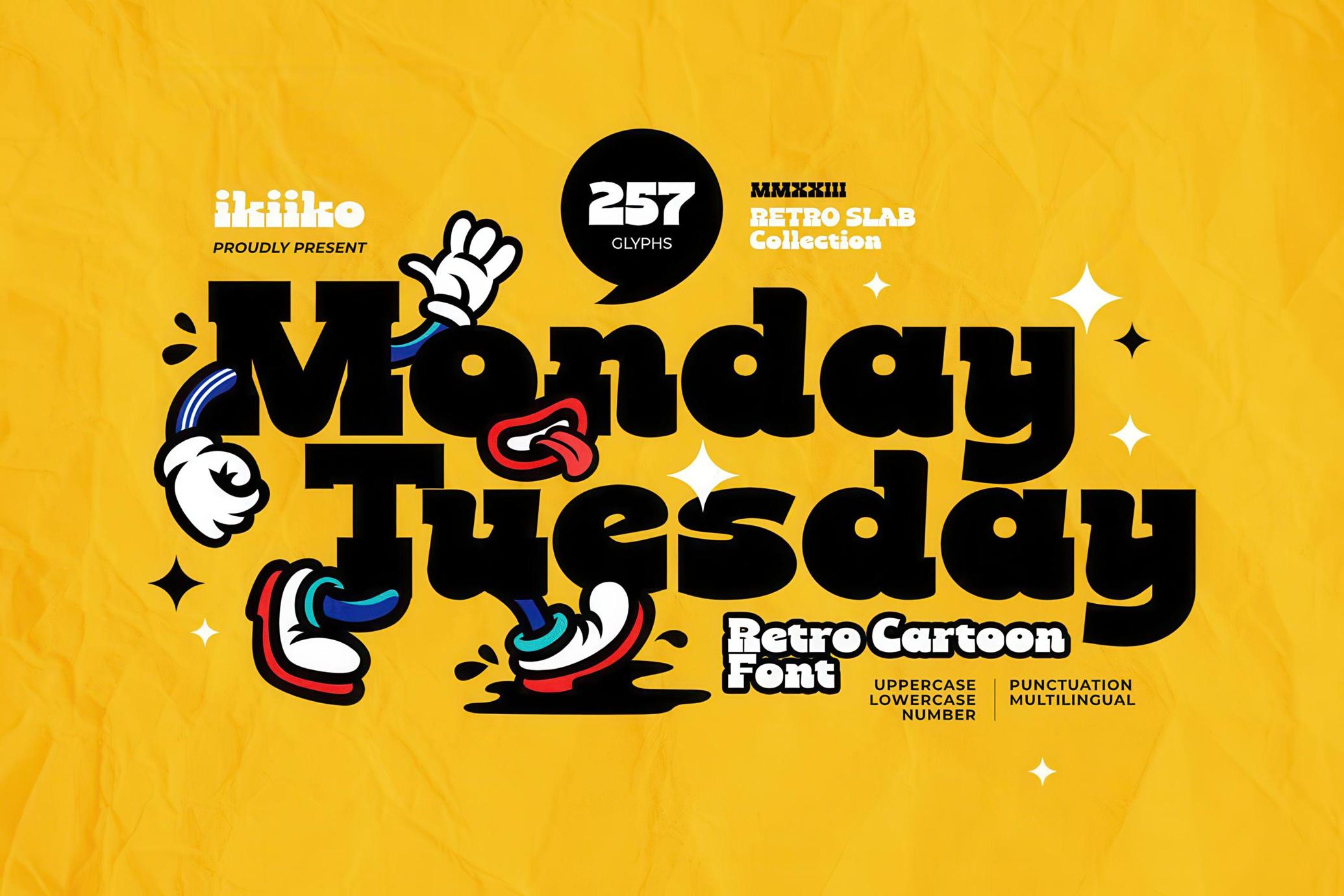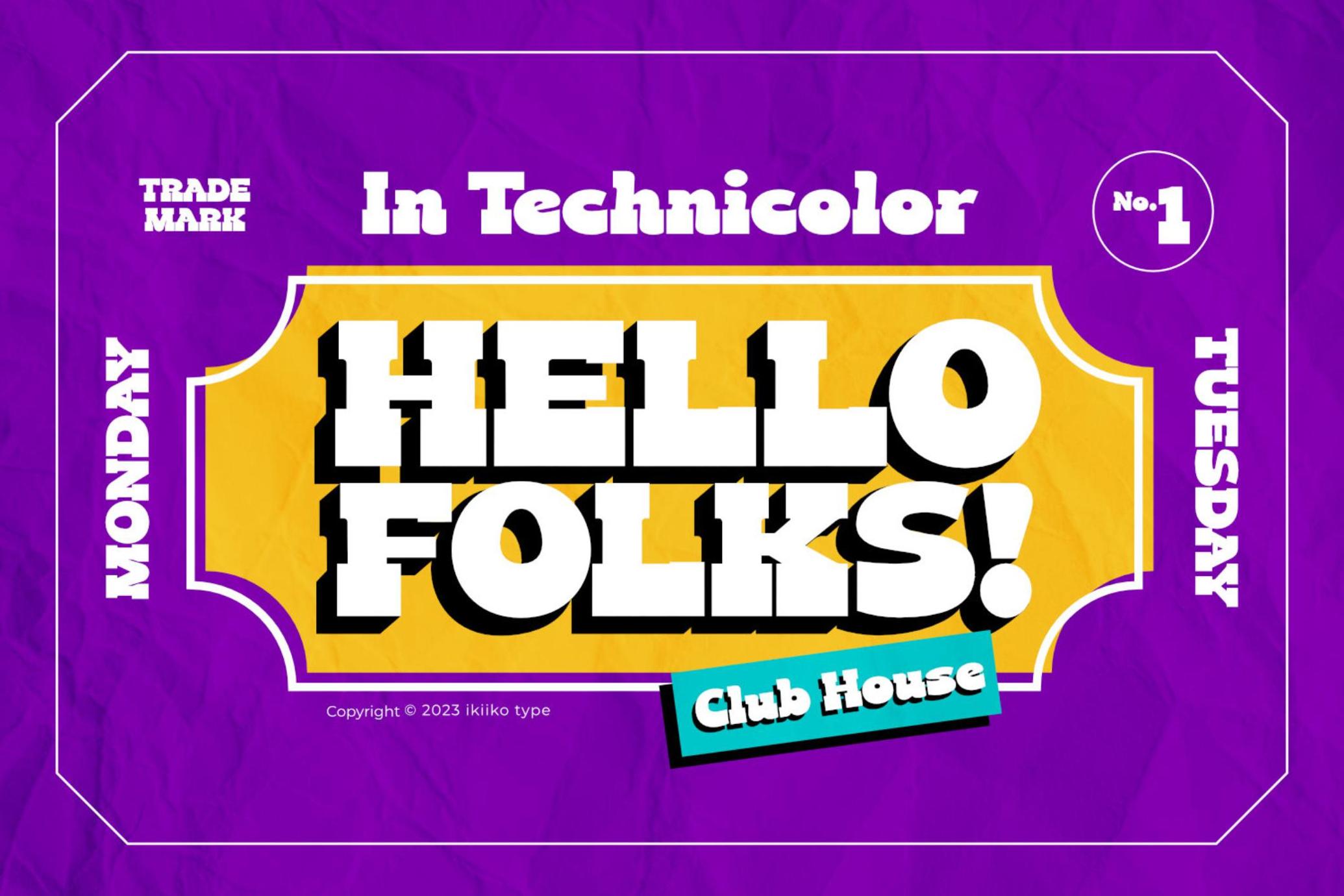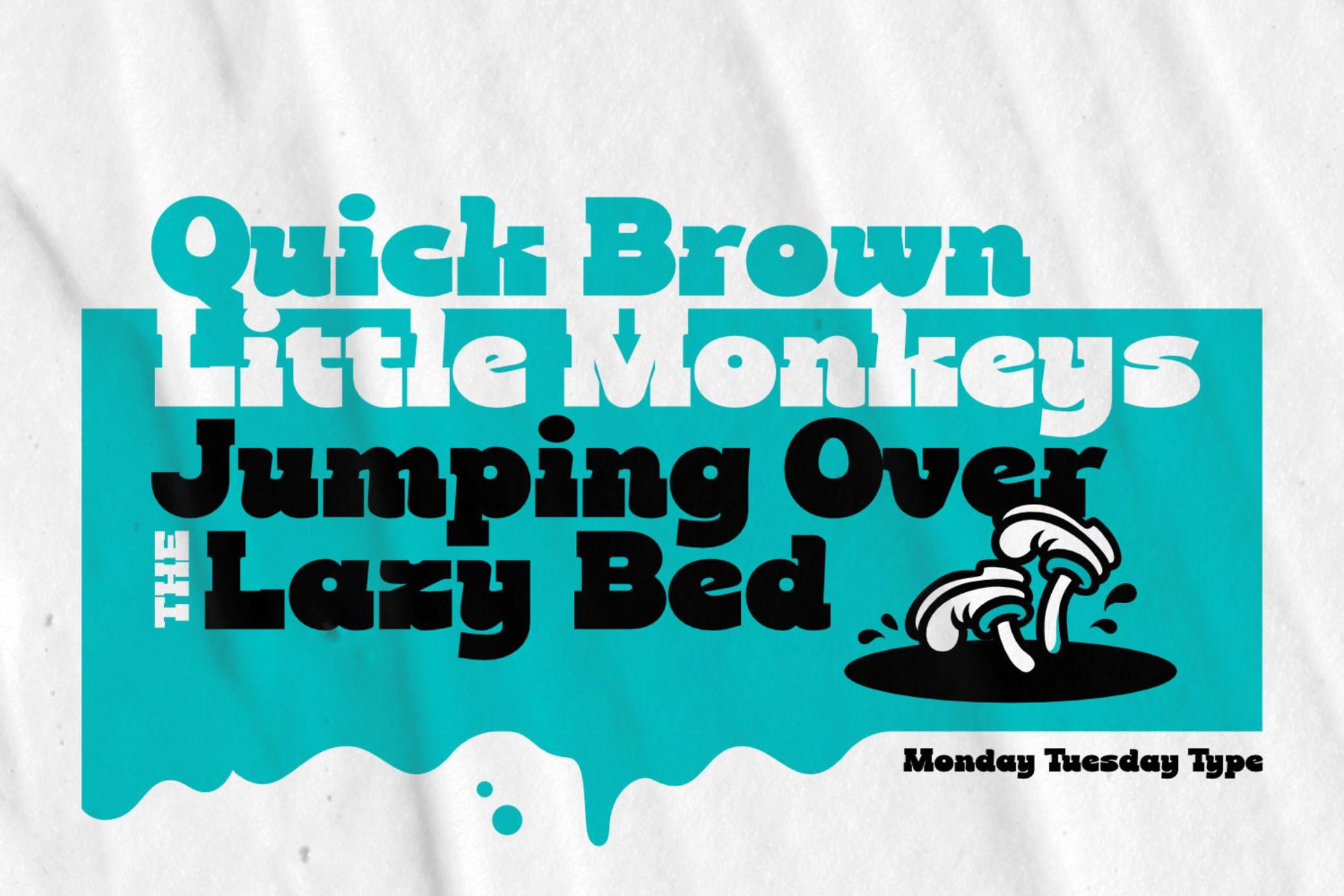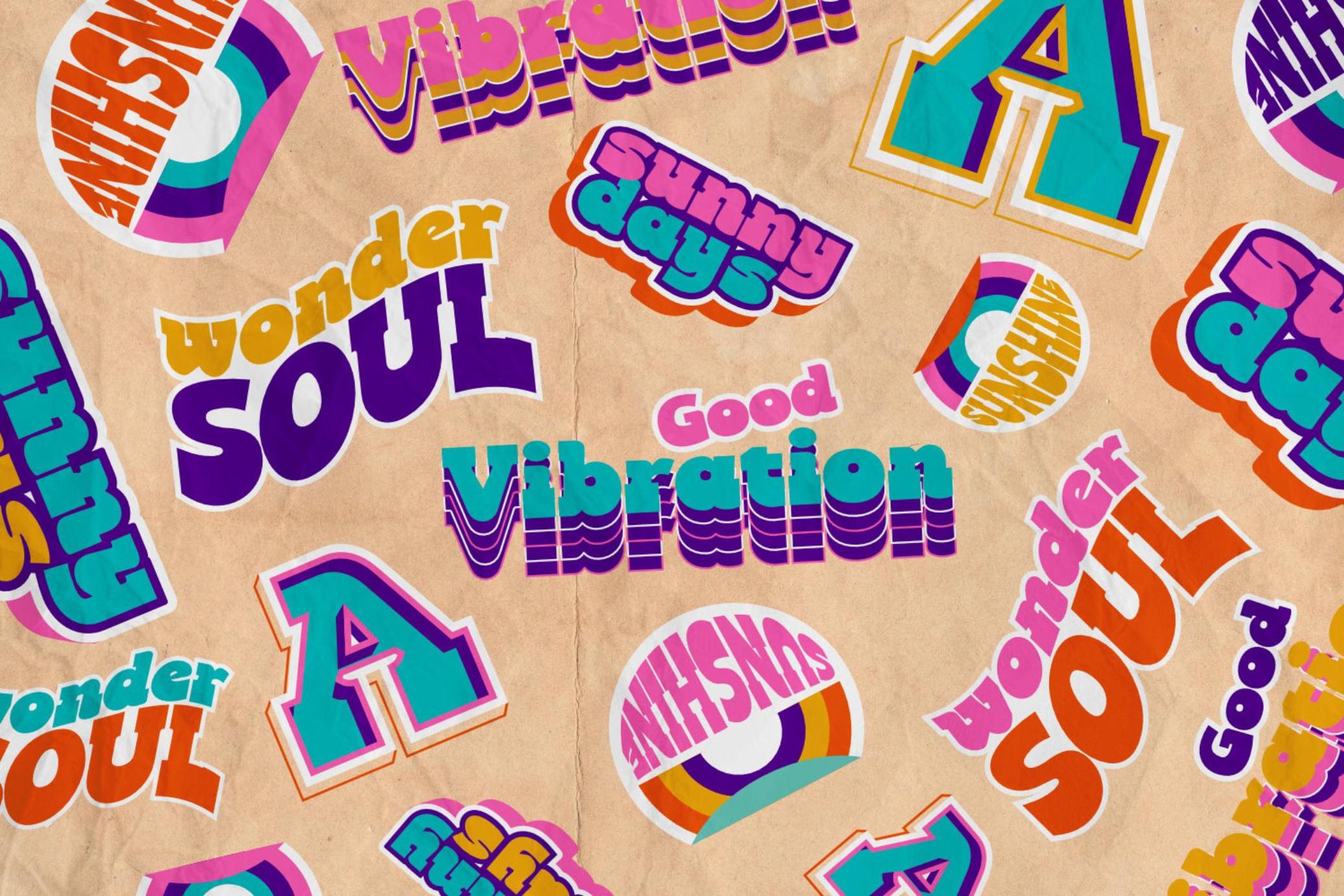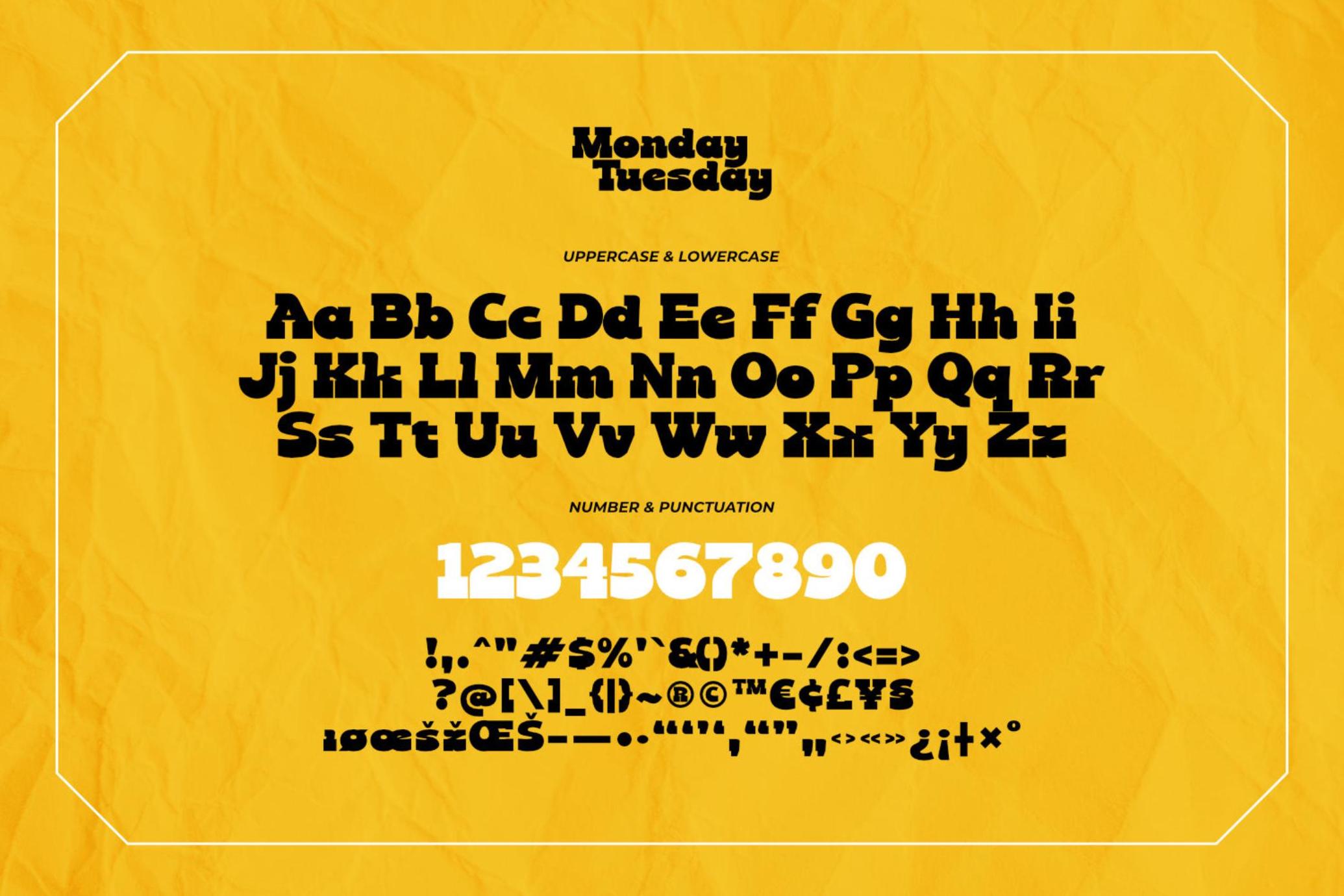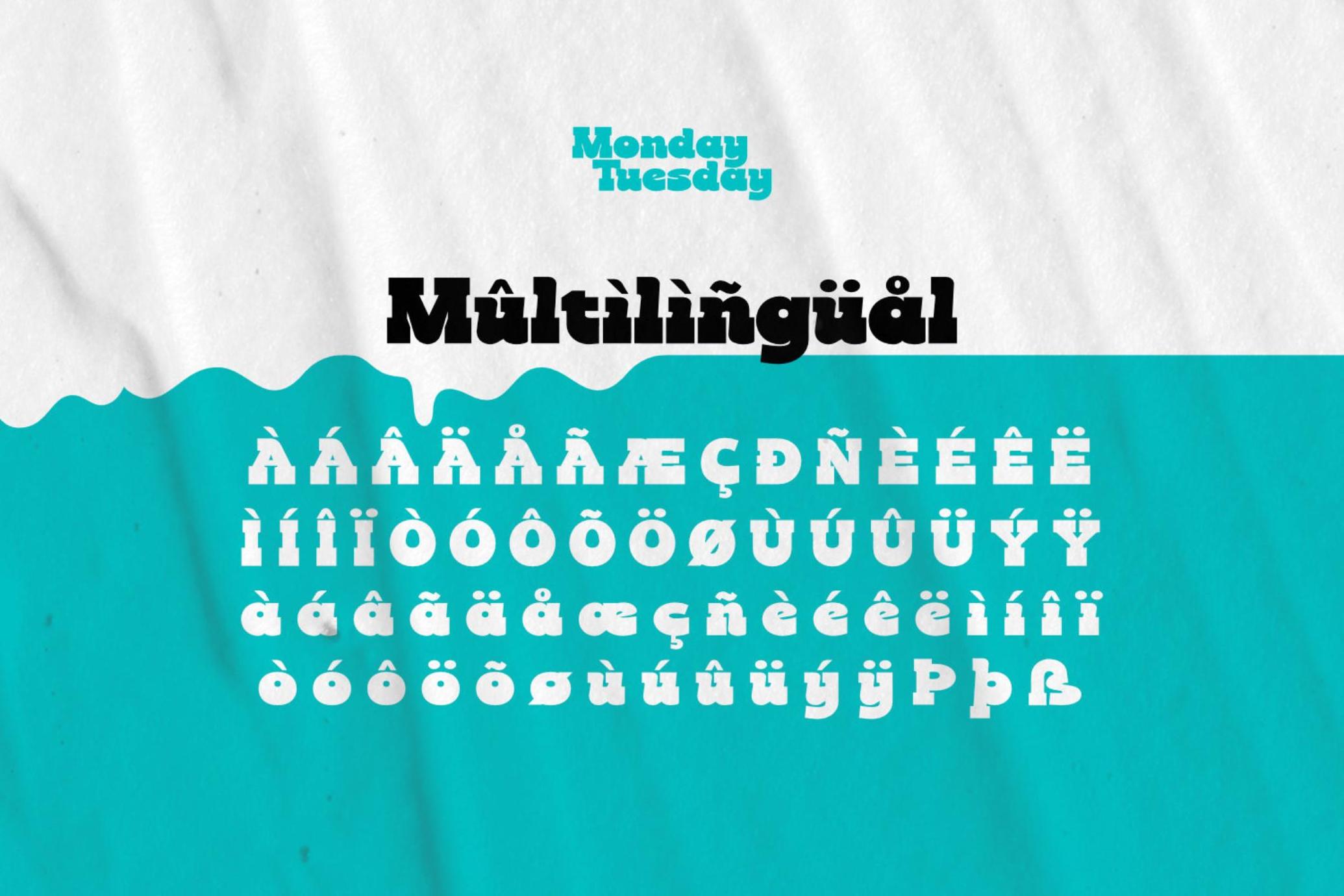
Monday Tuesday - Retro Cartoon Font
MondayTuesday
Monday Tuesday is an thick slab font with a touch of retro style. This type has a character bold, sturdy and also short. Tight font spacing makes this font has a retro impression and is more fun to explore. This type is very suitable for making a poster, magazine layout, brand logo, packaging, food & beverages, cartoon style, quotes, or simply as a stylish text overlay to any background image.